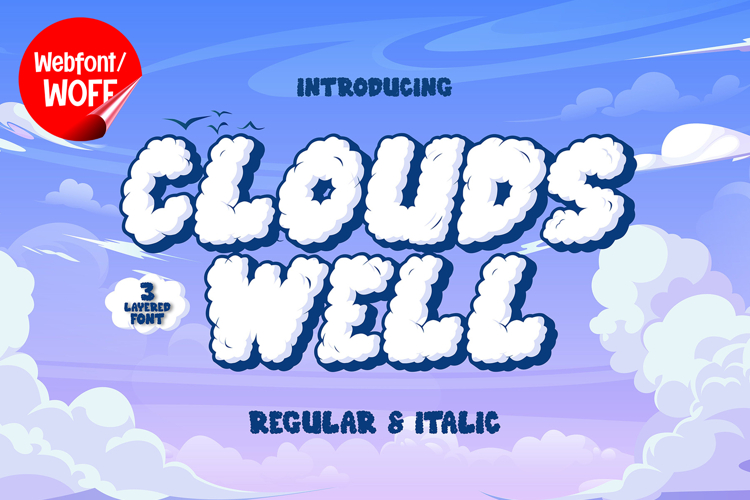
Clouds Well | Cute Decorative Webfont for Fun Creative Ideas
Clouds Well is a cute decorative webfont designed to bring cheerful creativity and playful charm into modern website design. Inspired by soft cloud shapes, whimsical lettering, and fun decorative typography, this font features rounded forms and friendly character details that create a warm and engaging visual identity. It is an excellent choice for projects that aim to deliver a cute, colorful, and visually appealing typographic style.
Clouds Well includes a complete set of uppercase characters designed with cute decorative aesthetics. The letterforms feature smooth curves, playful proportions, and soft visual elements that create a lighthearted and charming appearance. These characteristics make it ideal for headlines, banners, hero sections, invitations, product displays, and featured content where a joyful visual atmosphere is needed.
In addition to letters, the font includes numbers and punctuation, allowing flexible usage across various parts of a website. It works well for children’s websites, creative branding, party invitations, candy shops, lifestyle blogs, handmade product packaging, and social media graphics. Each character maintains a consistent decorative style, ensuring a cohesive and unified visual identity throughout the design.
With multilingual support, Clouds Well includes a wide range of accented characters, making it suitable for international websites and global audiences. This ensures content remains clear and visually consistent across different languages while preserving the cute and playful decorative aesthetic.
The cute decorative style of Clouds Well makes it especially suitable for kids’ brands, family-oriented websites, fun digital campaigns, cartoon-themed projects, and creative businesses. Its rounded structure and soft appearance create a friendly atmosphere that helps websites stand out in visually competitive environments. The decorative forms add warmth, happiness, and creative personality while maintaining a clean and modern display style.
Despite its decorative and playful appearance, Clouds Well is designed with readability in mind. The spacing and proportions are carefully balanced to ensure clarity, particularly in display sizes. This allows designers to use the font effectively for impactful headings and short content without sacrificing usability.
Clouds Well is a webfont that combines cute decorative aesthetics with modern digital performance. Its rounded forms, cheerful character, and playful style create a distinctive typographic presence that enhances website design. For projects that require a fun, adorable, and visually engaging decorative font, Clouds Well offers a versatile and delightful solution.